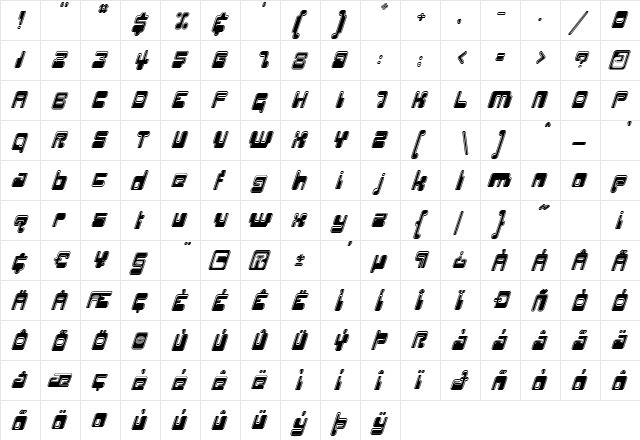
HiroOutline Italic
Design Context for HiroOutline Typeface
HiroOutline is built around its visual character rather than neutral utility — its distinctive forms are designed to make an impression at display sizes. Its italic angle brings a sense of urgency and motion to the letterforms.
Font Pairing: Pair with a clean neutral sans-serif for body copy to let HiroOutline's character lead without overwhelming the composition.
Pro Tip: Use HiroOutline exclusively at display sizes — it was designed to be seen, not read at length. Let a neutral companion handle body copy.